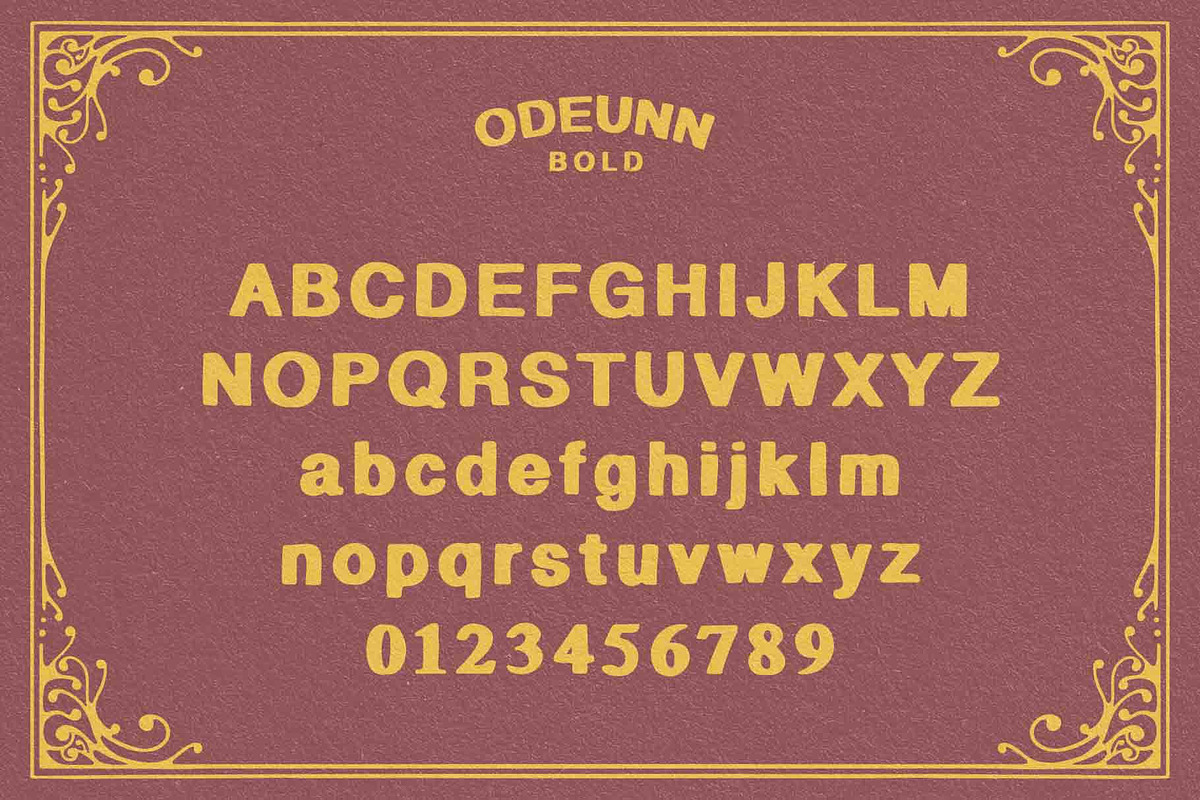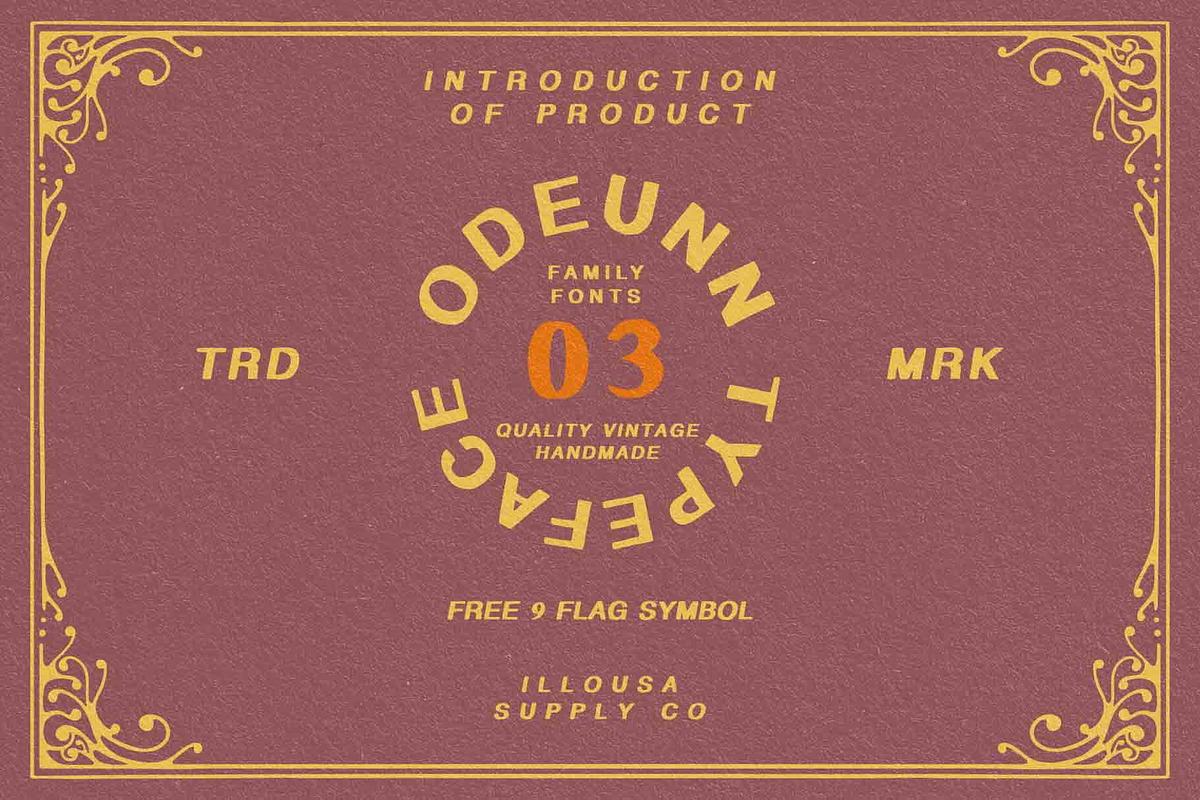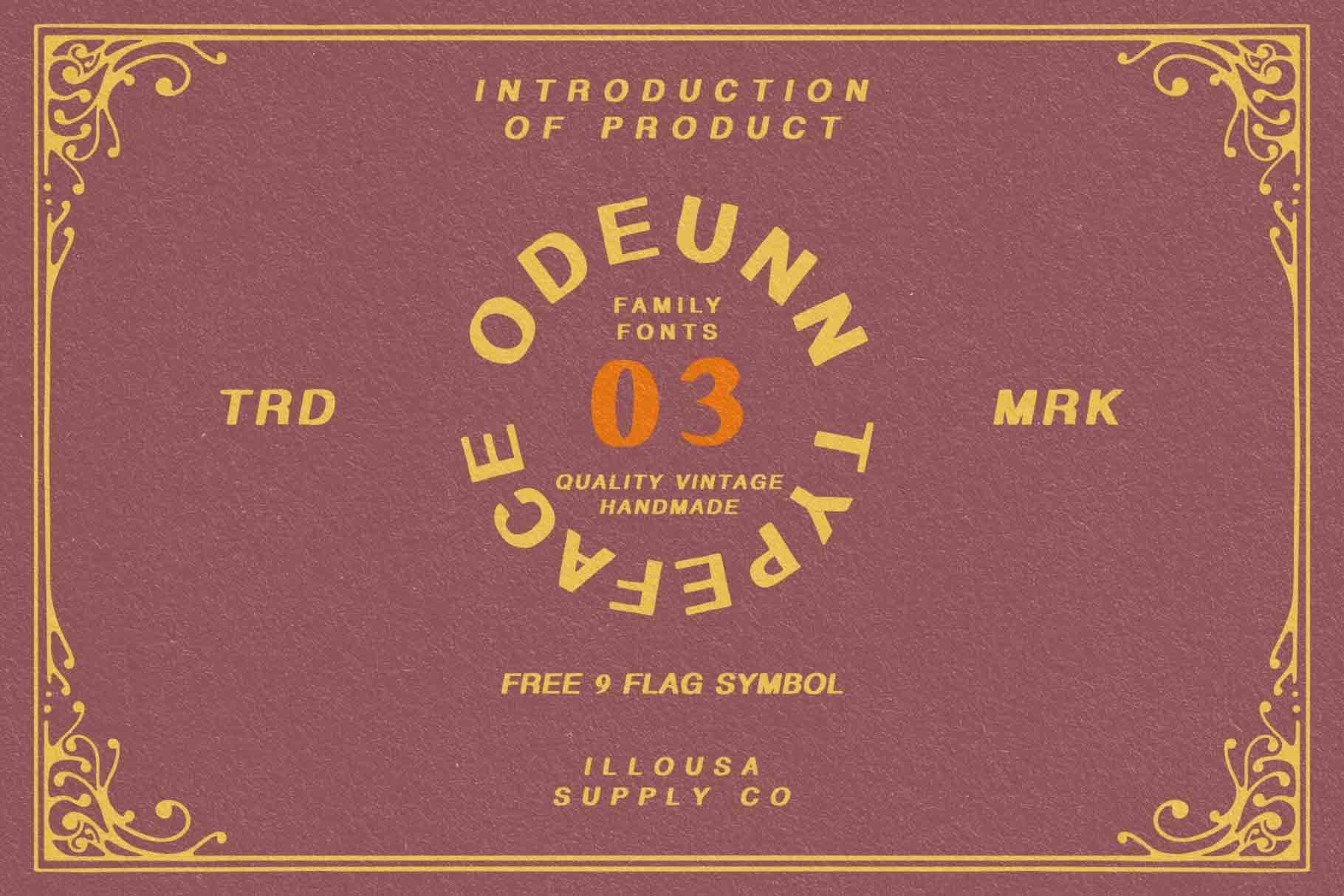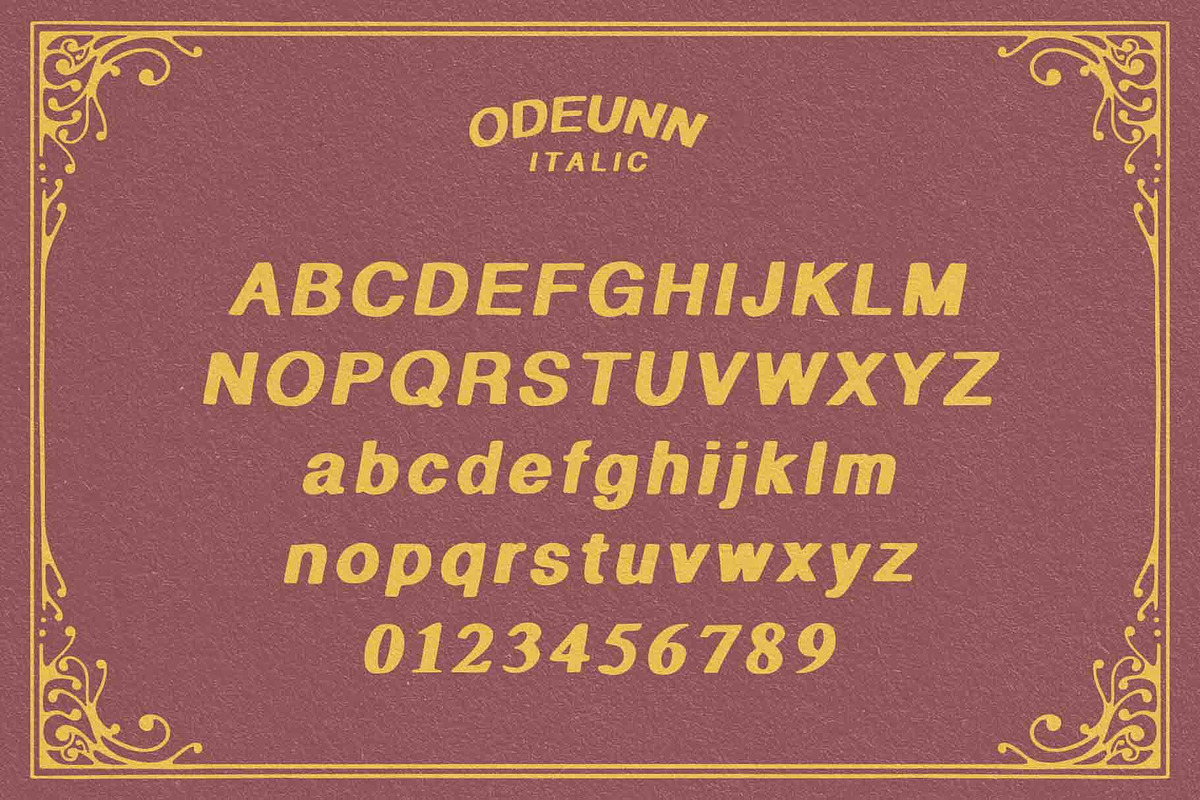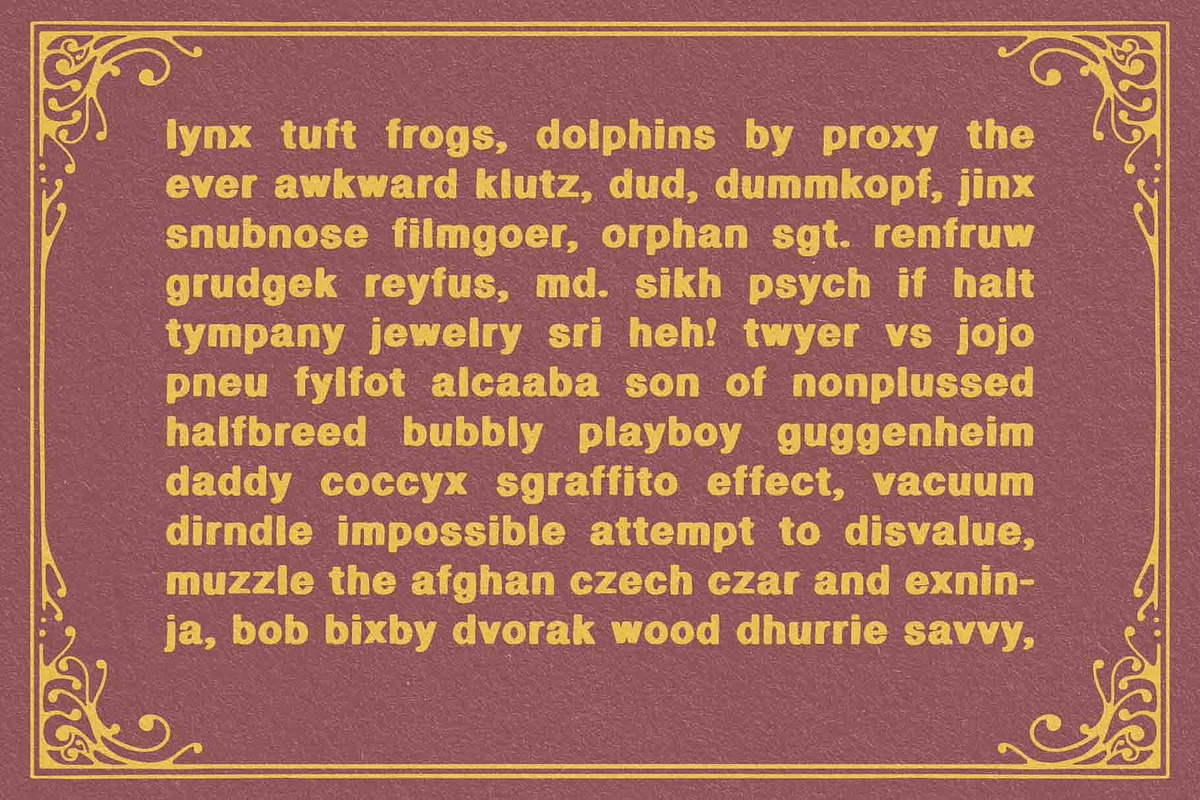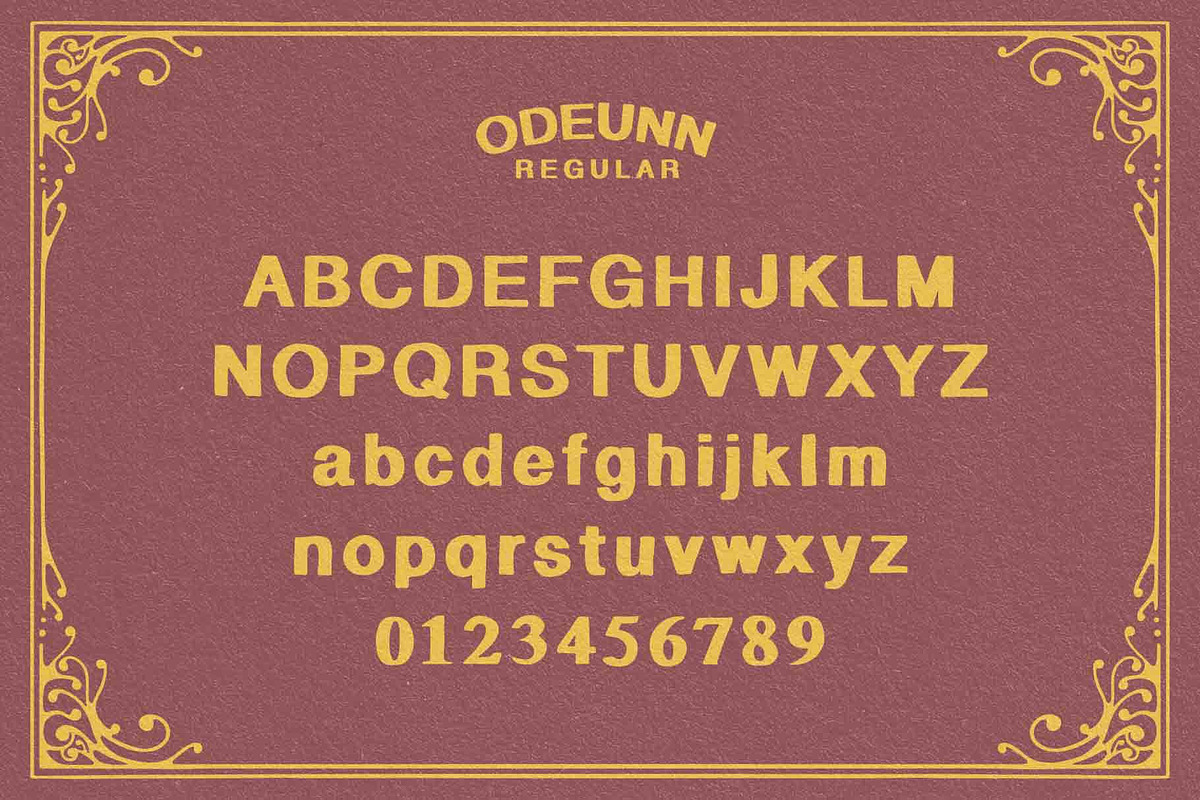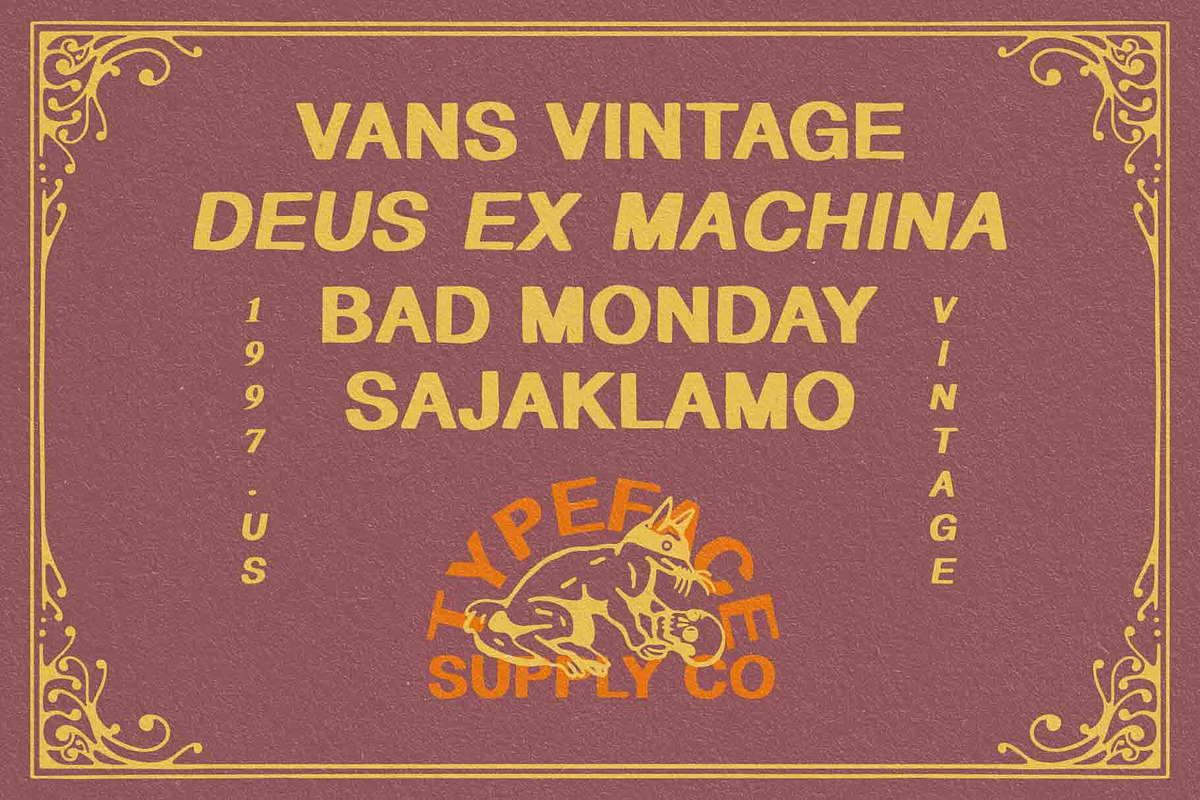
Odeunn - Sans Serif Typeface
Introducing Odeunn - An Handdrawn sans serif typeface with bold vintage stylistic alternates to choose from. Its heritage works wonderfully for brandings like logos, graphic tee, headlines, posters, packaging, and many more!
FEATURES: Odeunn Typeface Family
- Regular style
- Italic style
- Bold style